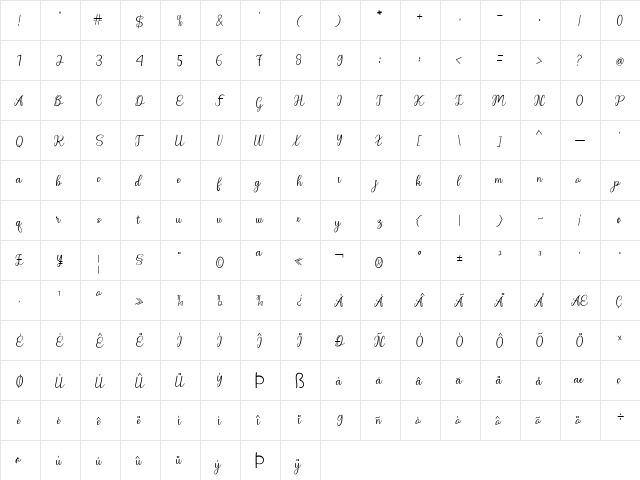
Regina Lover Regular
| Foundry | Mahyud Creatif |
| Designer | Mahyud Creatif |
Design Context for Regina Lover Typeface
Regina Lover is a composed and adaptable typeface that performs quietly and consistently across a wide range of design contexts.